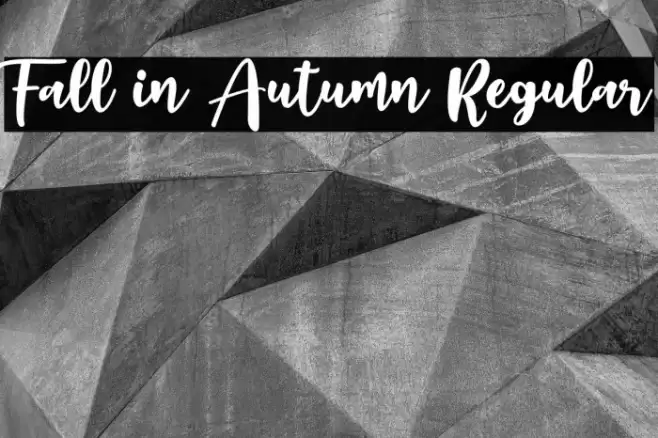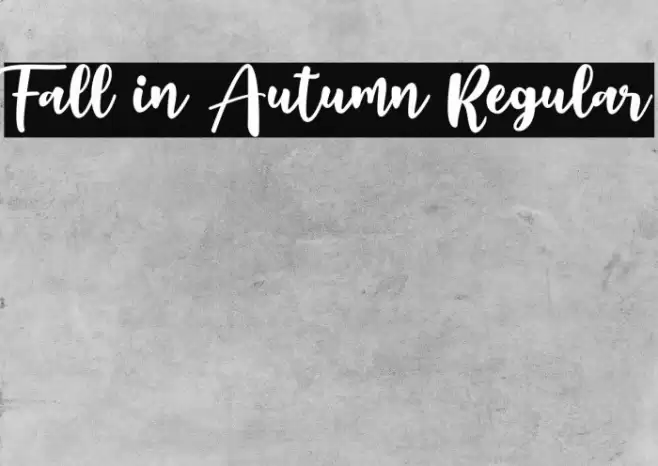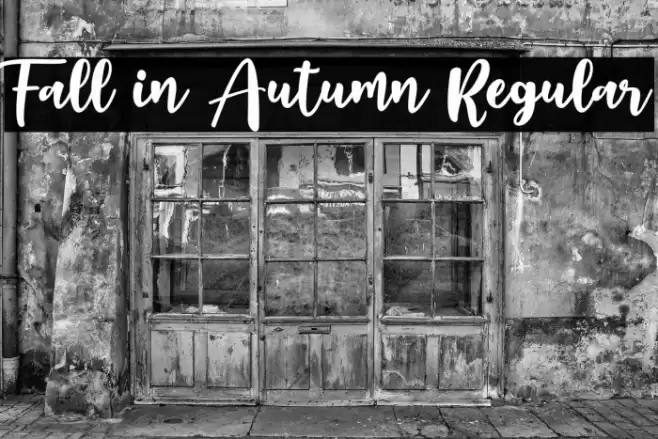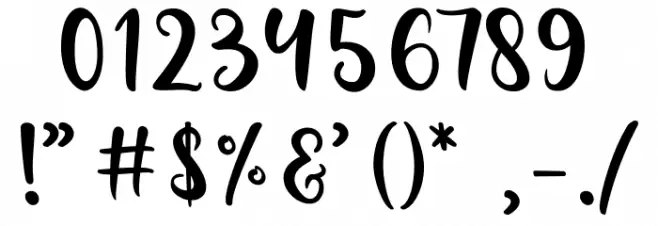
Fall in Autumn Regular Font
Fall in Autumn Regular Description
This font features a lively and expressive script style, characterized by its flowing and connected letterforms. The strokes are bold and dynamic, with a playful yet elegant appearance. The uppercase letters exhibit a sense of movement and flair, while the lowercase letters maintain a consistent rhythm and balance. The numerals are distinct and easy to read, complementing the overall style. Special characters are thoughtfully designed to match the font's energetic aesthetic. This font is perfect for projects that require a personal and artistic touch.
A bold, expressive script font with dynamic, flowing letterforms from Uncategorized fonts.
- Proposed Projects: Ideal for invitations, greeting cards, branding, and social media graphics.
- Use Case: Logos, Headlines, Invitations